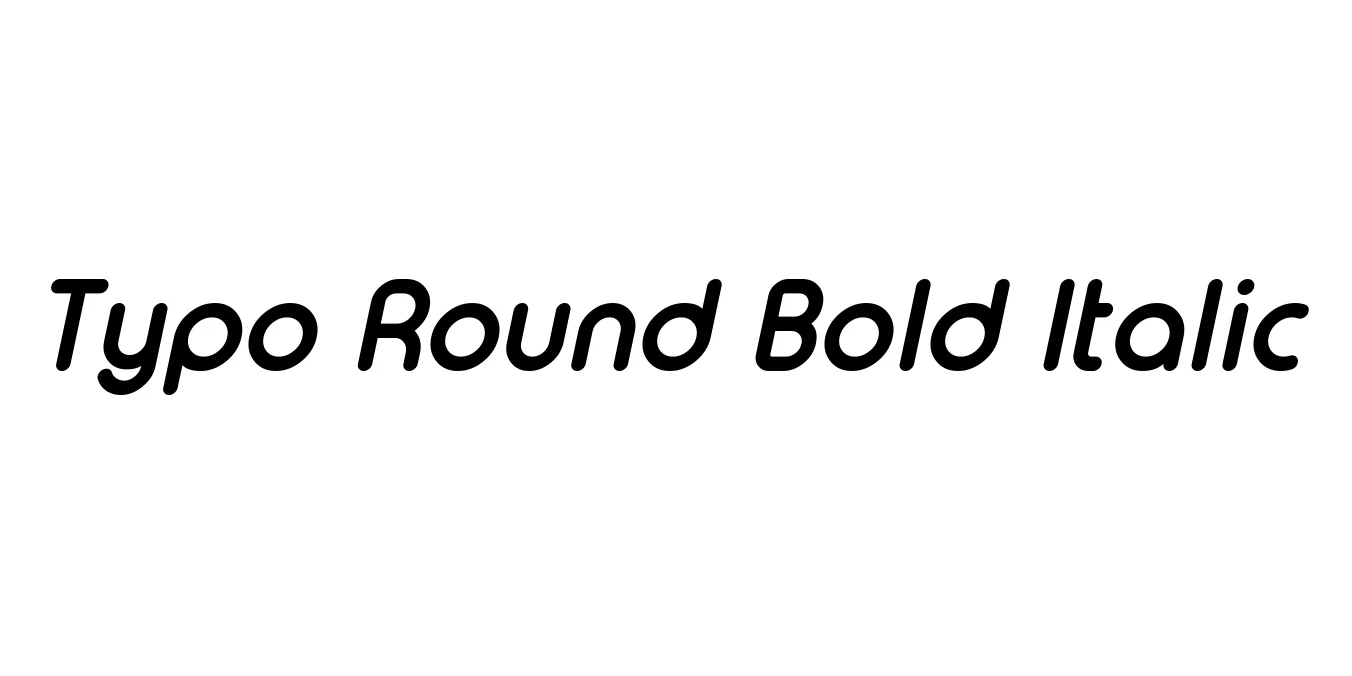
Typo Round Bold Italic
Designed by Studio Typo
Typo Round Bold Italic is a stylized sans-serif typeface that emphasizes soft, rounded terminals and a geometric structure. The bold weight provides a strong visual presence, while the italicized slant introduces a dynamic sense of motion and modern flair. It was designed to bridge the gap between technical precision and friendly approachability, making it a staple for designers who want to avoid the rigidity of traditional square-ended fonts.
This typeface excels in digital environments where readability and character are paramount. Its smooth edges make it particularly effective for on-screen display, reducing visual fatigue while maintaining a clean, professional aesthetic. As part of the larger Typo Round family, the Bold Italic version is frequently utilized for high-impact branding, playful advertising, and contemporary user interfaces that require a balance of weight and elegance.
Typo Round Bold Italic Best Uses
Perfect for creating approachable and memorable brand identities and logos.
Ideal for catchy headlines and high-energy call-to-action buttons.
Used in promotional banners and posters to grab attention with a soft touch.
Great for mobile applications looking for a modern and accessible feel.